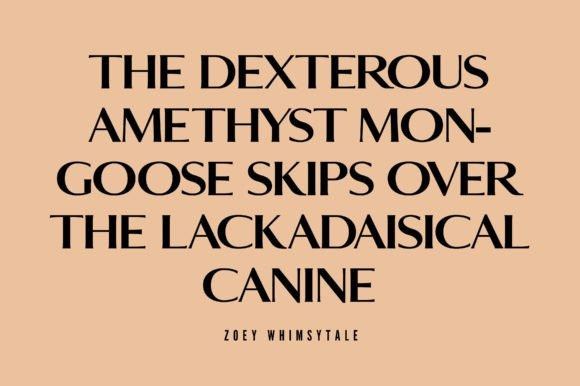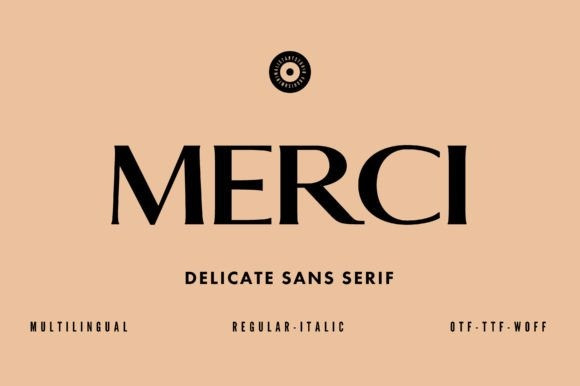
MERCI FONT
Merci Font – where elegance meets simplicity in the world of typography. Elevate your designs with this exquisite minimalist sans serif typeface that embodies the essence of modern chic. With its delicate lines and clean, uncluttered forms, “Merci” adds a touch of sophistication to your projects, whether it’s branding, packaging, invitations, or digital content